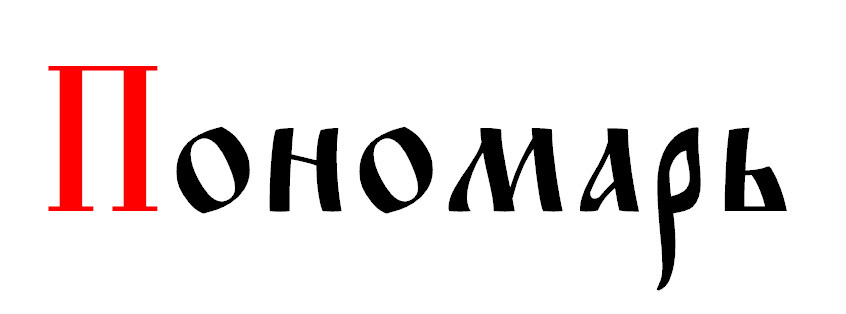
Ponomar Unicode Font
Ponomar Unicode Font is perfect for Orthodox liturgical publishing, ecclesiastical calendar design, Church Slavonic manuscripts, Byzantine religious materials, Orthodox seminary communications, monastic community publications, religious educational content, and sacred text documentation. This reverent typeface works magnificently in both digital applications and print media where Orthodox tradition and liturgical authenticity are fundamental design requirements.
What makes Ponomar Unicode Font so exciting is its profound interpretation of Orthodox liturgical tradition through sacred letterforms that preserve the authentic calligraphic heritage of Eastern Christian worship and Church Slavonic manuscripts. The font features ecclesiastical characters with liturgical proportions, traditional curves, and sacred details that evoke the spiritual devotion of Orthodox monasteries and the reverent craftsmanship of religious scribes throughout centuries of Christian worship. Its holy personality and Byzantine heritage make it ideal for Orthodox institutions seeking to maintain liturgical authenticity while serving congregations who value traditional worship practices and the preservation of Church Slavonic religious culture.
The Ponomar Unicode Font family includes comprehensive Unicode support for Church Slavonic and related scripts with different sacred intensities, along with liturgical alternates and Orthodox ornamental elements. Each style maintains the typeface's reverent character while offering extensive character sets including Church Slavonic letters, liturgical numerals, ecclesiastical punctuation marks, and special symbols designed to enhance Orthodox communications and religious branding efforts across various sacred contexts.
This remarkable typeface represents the perfect preservation of liturgical tradition and contemporary digital functionality for Orthodox religious and educational institutions. Whether you're developing Orthodox parish identities, creating liturgical service materials, or designing religious educational publications, Ponomar Unicode Font Free Download provides the sacred authenticity and versatility needed to serve Orthodox communities worldwide. The font's liturgical heritage makes it particularly effective for Orthodox churches, religious publishers, theological seminaries, and institutions preserving the rich traditions of Eastern Christian worship and Church Slavonic manuscript culture.
The meticulously preserved liturgical construction and optimized sacred performance in Ponomar Unicode Font ensure both ecclesiastical authenticity and clear communication across all Orthodox applications. Its reverent presence makes it perfect for religious branding, liturgical educational materials, and sacred communications where its full Church Slavonic character can create meaningful spiritual connections with Orthodox faithful seeking authentic worship experiences and the preservation of their sacred religious and cultural heritage.